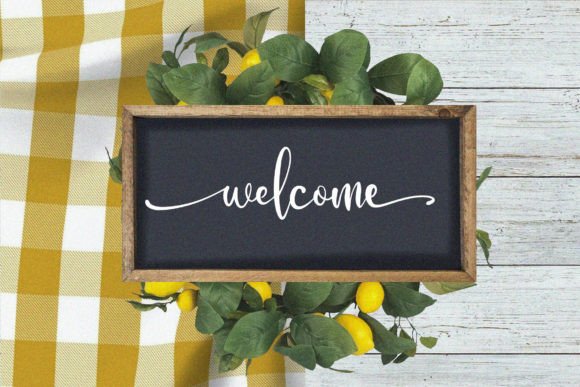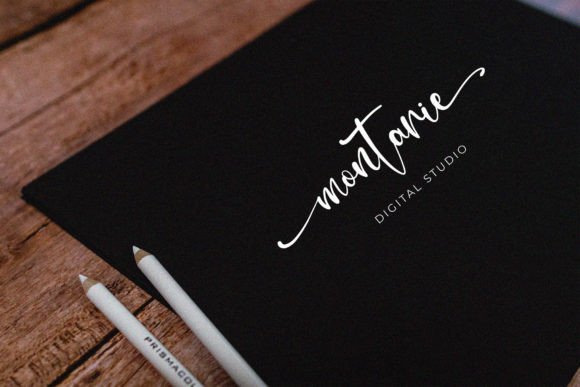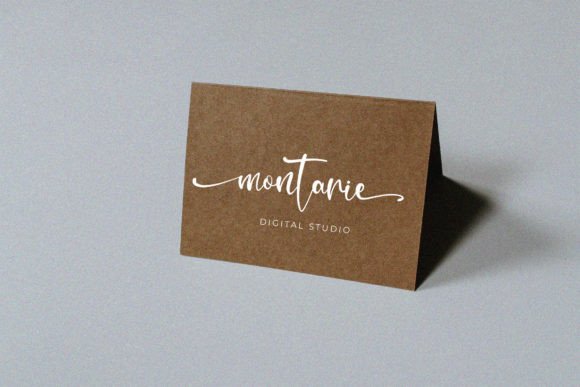
Introduction to Moettiara Font
As a designer, have you ever stumbled upon that perfect font that elevates your entire creative project? For me, that moment came when I discovered the Moettiara Font. Its minimalist style and well-balanced letters instantly caught my attention, and I knew I had to share it with fellow designers. This high-quality font is a game-changer, offering a transparent background that makes it perfect for any design.
The Moettiara Font is a masterpiece that will make your designs stand out. Its versatility is unmatched, and it’s available for free download, making it an invaluable resource for any designer. Whether you’re working on a logo, typography project, or just need a design element, Moettiara Font is the perfect choice. Its clean and elegant design will add a touch of sophistication to any creative project.
Key Features of Moettiara Font
- High-quality design suitable for creative projects and various design resources, including logos, branding materials, and digital art.
- Unique, elegant script style with a transparent background, ideal for adding a touch of sophistication to any design.
Honest Review: Moettiara Font
As a designer, I’m always on the lookout for high-quality design resources to elevate my creative projects. The Moettiara Font is a great find, offering a beautiful and elegant script font perfect for adding a touch of sophistication to any design.
- ✨ The Moettiara Font features a transparent background, making it easy to layer and composite with other design elements.
- ✨ The font is highly versatile and can be used for a wide range of creative projects, from branding and marketing materials to wedding invitations and more.
- ⚠️ The Moettiara Font may not be suitable for all types of projects, particularly those requiring a bold or sans-serif font style.
- ⚠️ The font’s script style may be difficult to read in certain contexts, such as on small screens or in print materials with low resolution.
Overall, the Moettiara Font is a solid design resource that’s sure to please. While it may have some limitations, its beauty and versatility make it a great addition to any designer’s toolkit. I’d definitely recommend giving it a try for your next creative project.
Moettiara Font is suitable for various creative projects, including graphic design, digital art, and typography-based designs. It’s also great for creating social media graphics, posters, and flyers.